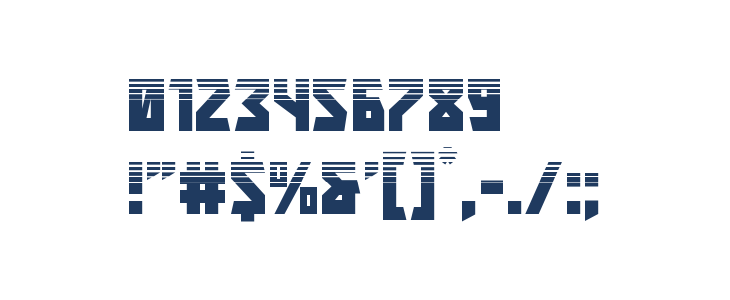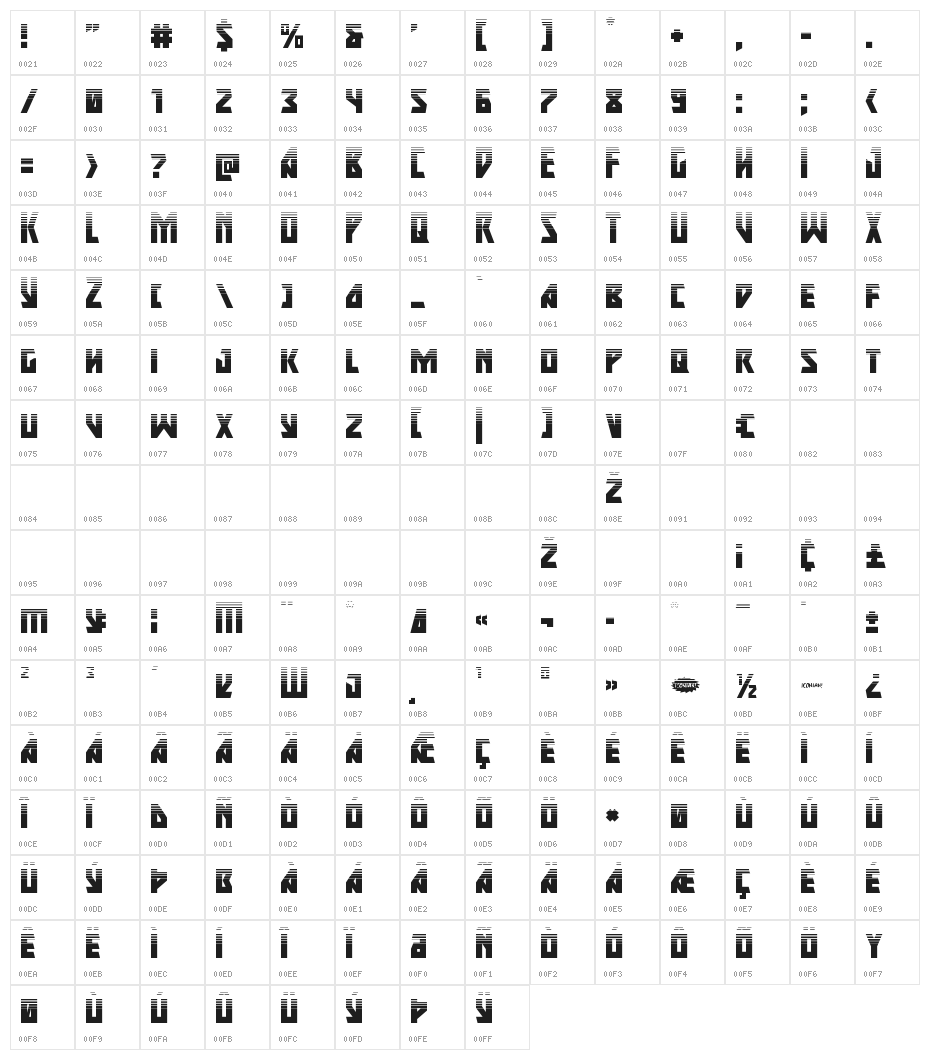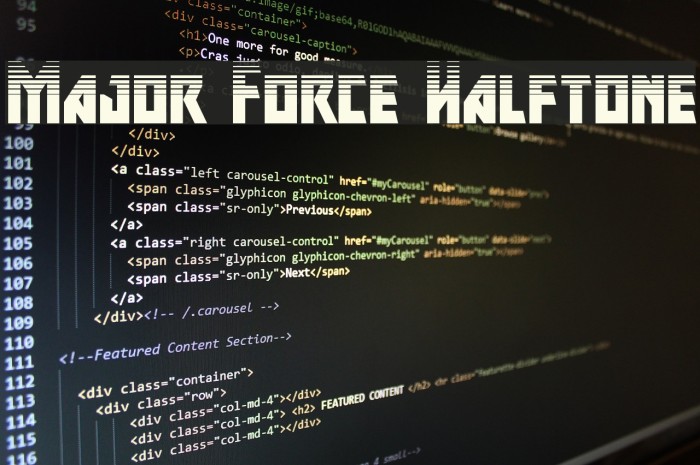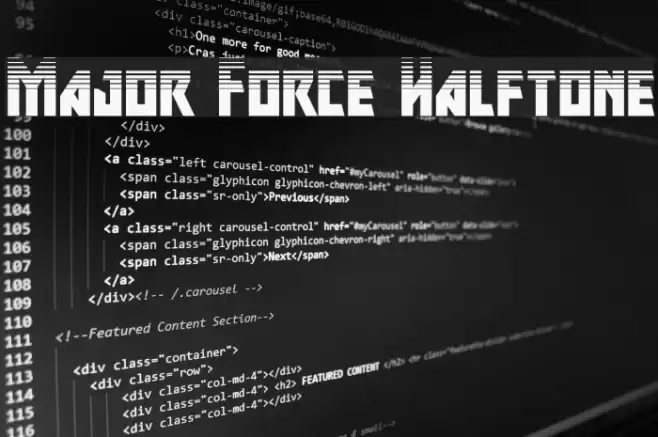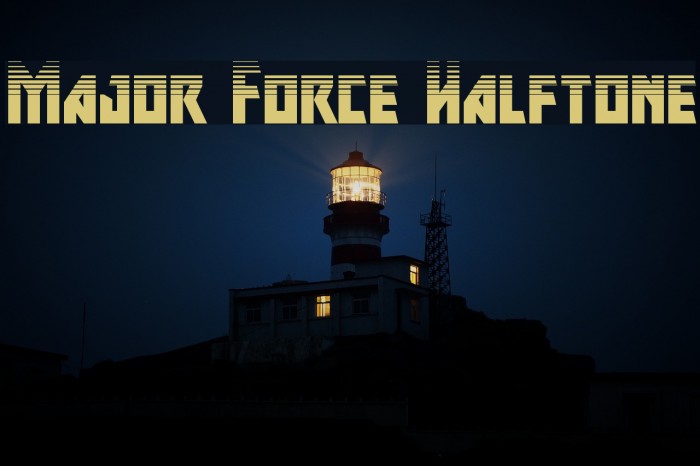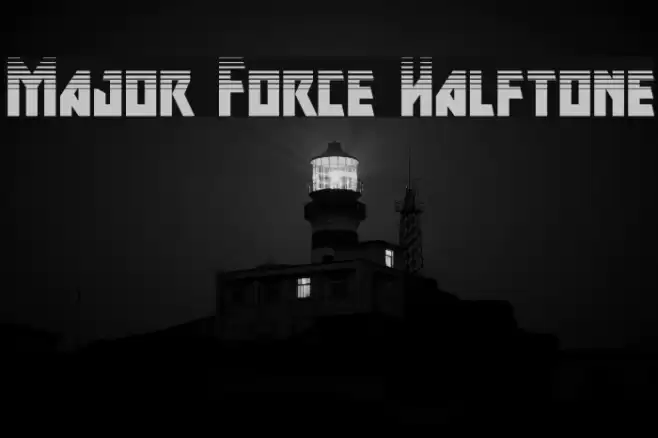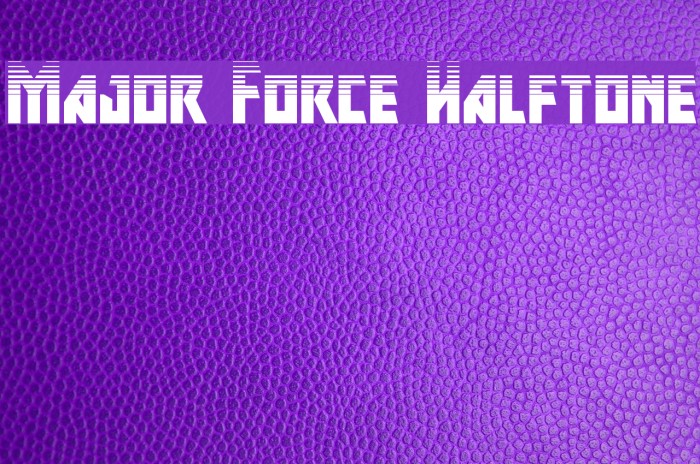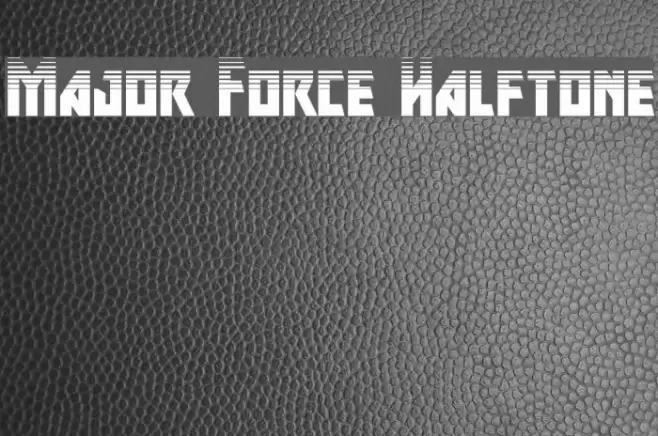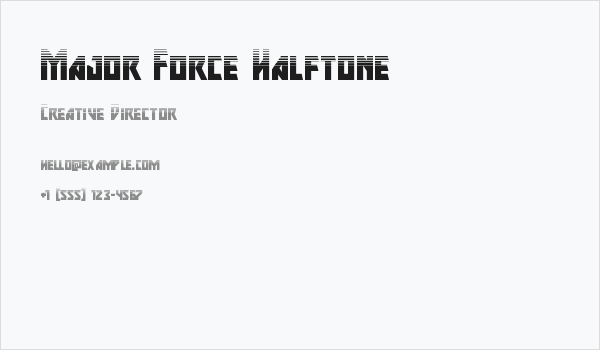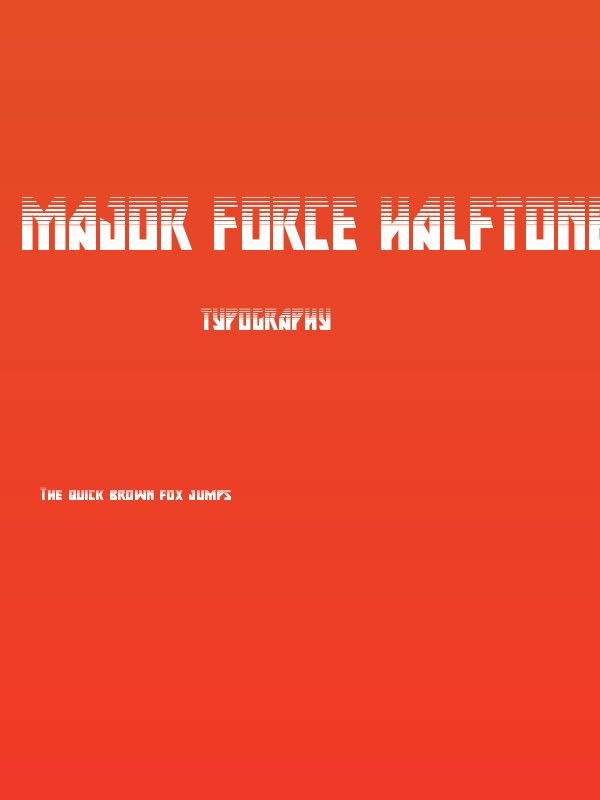
Major Force Halftone Font
Major Force Halftone Description
This font features a bold, geometric design with a distinctive halftone pattern. The characters are constructed with solid, angular shapes, and the upper sections of each letter are adorned with horizontal lines that create a halftone effect. This gives the font a dynamic and futuristic appearance, making it stand out in any design. The uppercase and lowercase letters share a similar structure, maintaining consistency throughout. The numbers and special characters follow the same stylistic approach, ensuring a cohesive look across all elements. The font's unique style is ideal for projects that require a modern and edgy aesthetic.